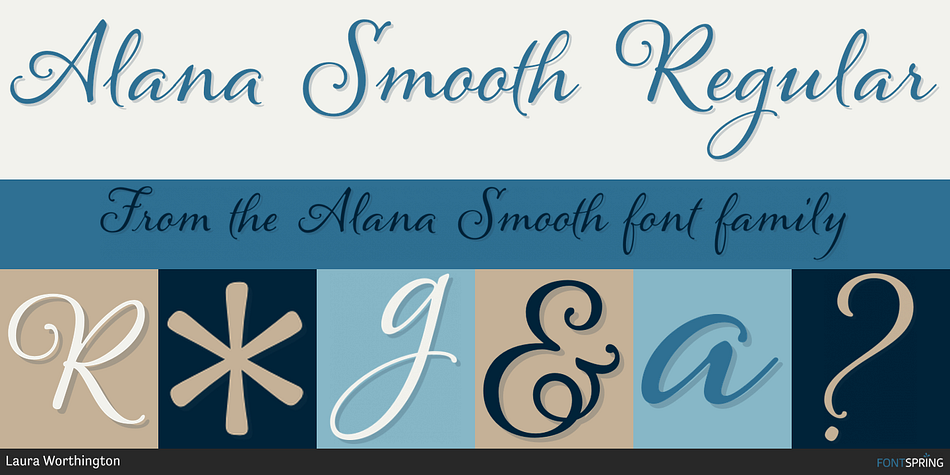
Alana Smooth Regular
Designed by Laura Worthington, Alana Smooth is a script and modern calligraphy font published by Laura Worthington.
Alana is a connected script that glows with casual elegance. Its inviting letterforms work well in settings such as letter-writing and menu details; even at small sizes. Alana includes over 300 alternates, including swash capitals and ornamented forms to customize titles, headlines, packaging, and wordmarks. Alana includes 62 matching ornaments: botanical fleurons, birds, and cute lil’ bugs.